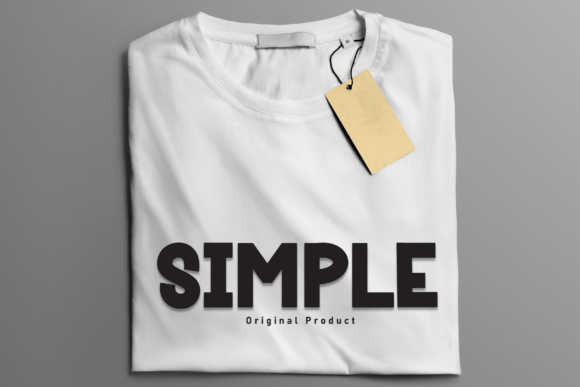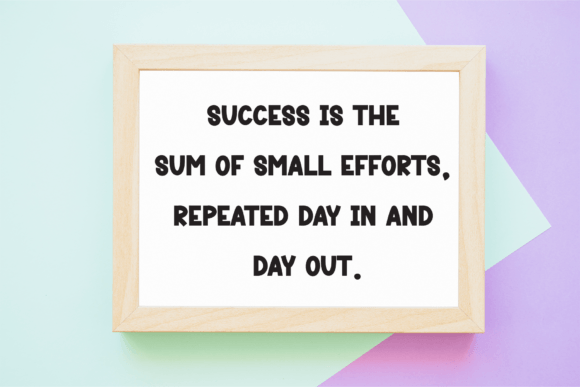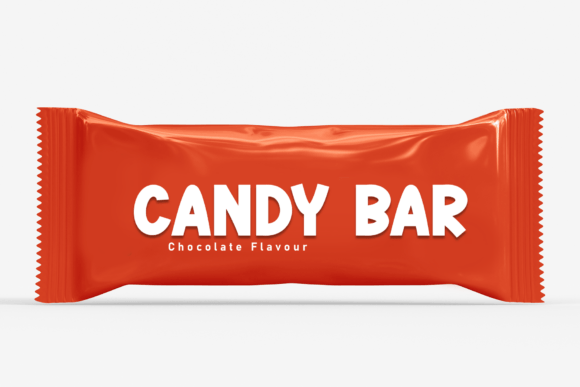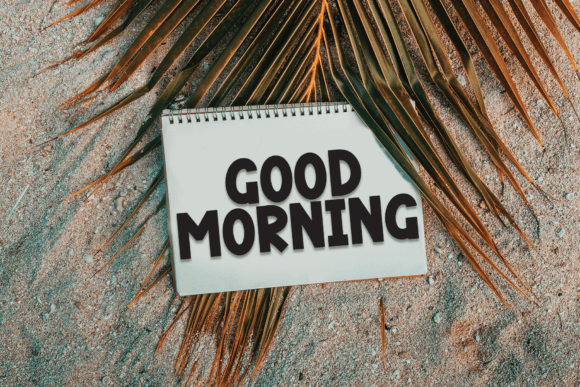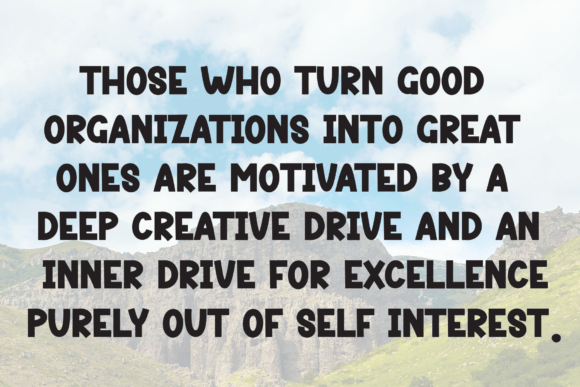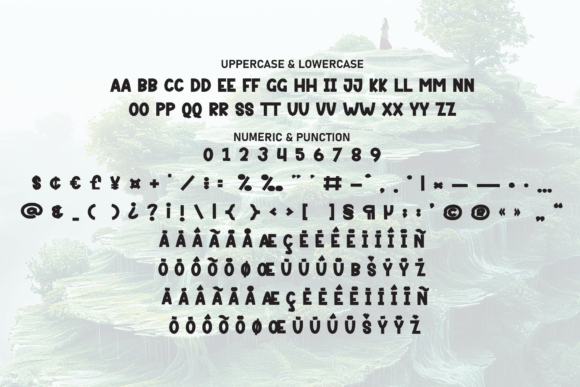
Discover the Whimsy of Grinch Mountain Font
Have you ever been in the middle of a design project, and suddenly, it feels like something’s missing? You’re not quite sure what it is, but the design just doesn’t have that special spark. I recall a similar experience while working on a wedding invitation project. My client wanted a font that was both elegant and playful, but I just couldn’t seem to find the right fit. That’s when I stumbled upon Grinch Mountain Font, and let me tell you, it was love at first sight! 💕
A Personal Review of Grinch Mountain Font
So, what makes Grinch Mountain Font so special? Here are a few things I absolutely love about it:
- ✨ Playful Elegance: This font has the perfect balance of whimsy and sophistication, making it ideal for a wide range of design projects.
- ✅ Easy to Read: Despite its playful nature, Grinch Mountain Font remains highly legible, even at smaller font sizes.
- 💫 Versatile: From wedding invites to greeting cards, this font can be used for various design projects that require a touch of personality.
Of course, no font is perfect, and Grinch Mountain Font has a few minor quirks:
- 🤔 Limited Use in Formal Designs: While it’s perfect for playful designs, Grinch Mountain Font might not be the best choice for more formal projects, such as business reports or academic papers.
- ⚠️ Glyph Limitations: Some users have reported that the font could benefit from a more extensive glyph set, particularly for non-English languages.
The Story Behind Grinch Mountain Font
Grinch Mountain Font was created with the intention of bringing a dash of whimsy to design projects. Inspired by the playful, yet elegant qualities of classic script fonts, this font is perfect for designers and crafters looking to add a personal touch to their work. Whether you’re designing wedding invitations or greeting cards, Grinch Mountain Font is sure to delight.
Here are some common questions about Grinch Mountain Font:
- Q: What type of designs is Grinch Mountain Font best suited for?
- A: Grinch Mountain Font is perfect for playful designs, such as wedding invitations, greeting cards, and other creative projects that require a touch of personality.
- Q: Does Grinch Mountain Font support OpenType features?
- A: Yes, Grinch Mountain Font supports OpenType features, including ligatures and stylistic alternates, which can be accessed in compatible design software.